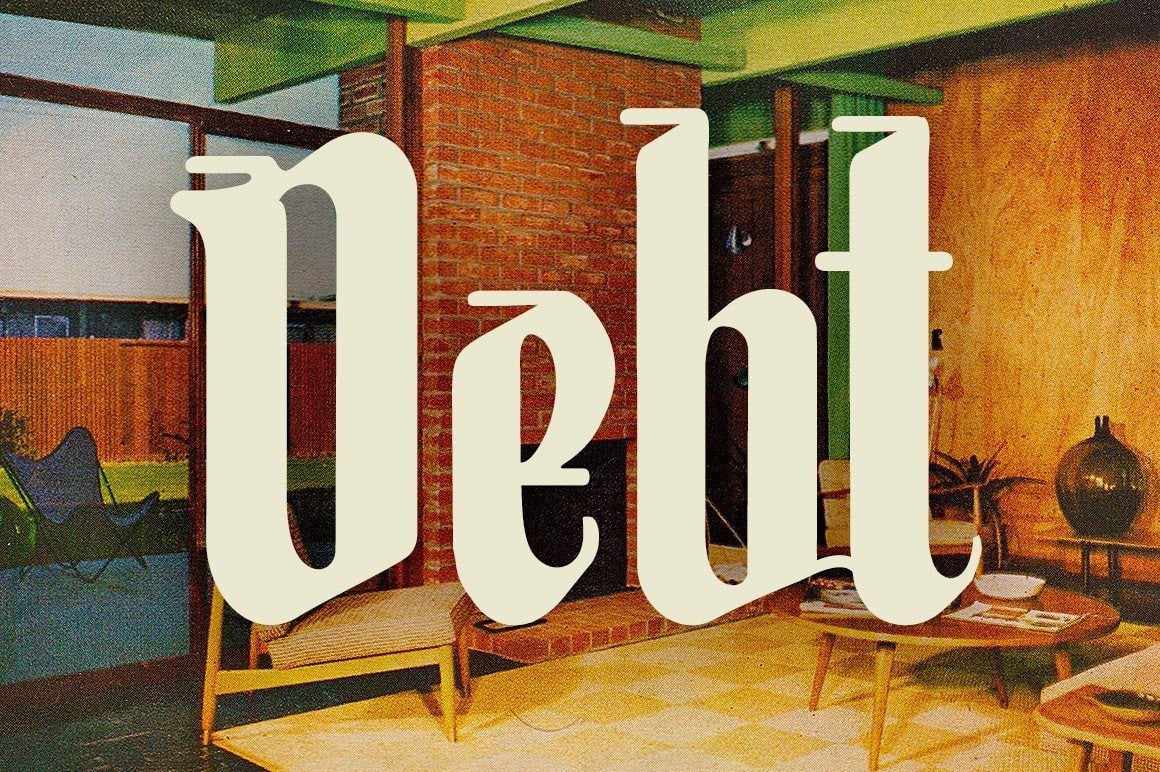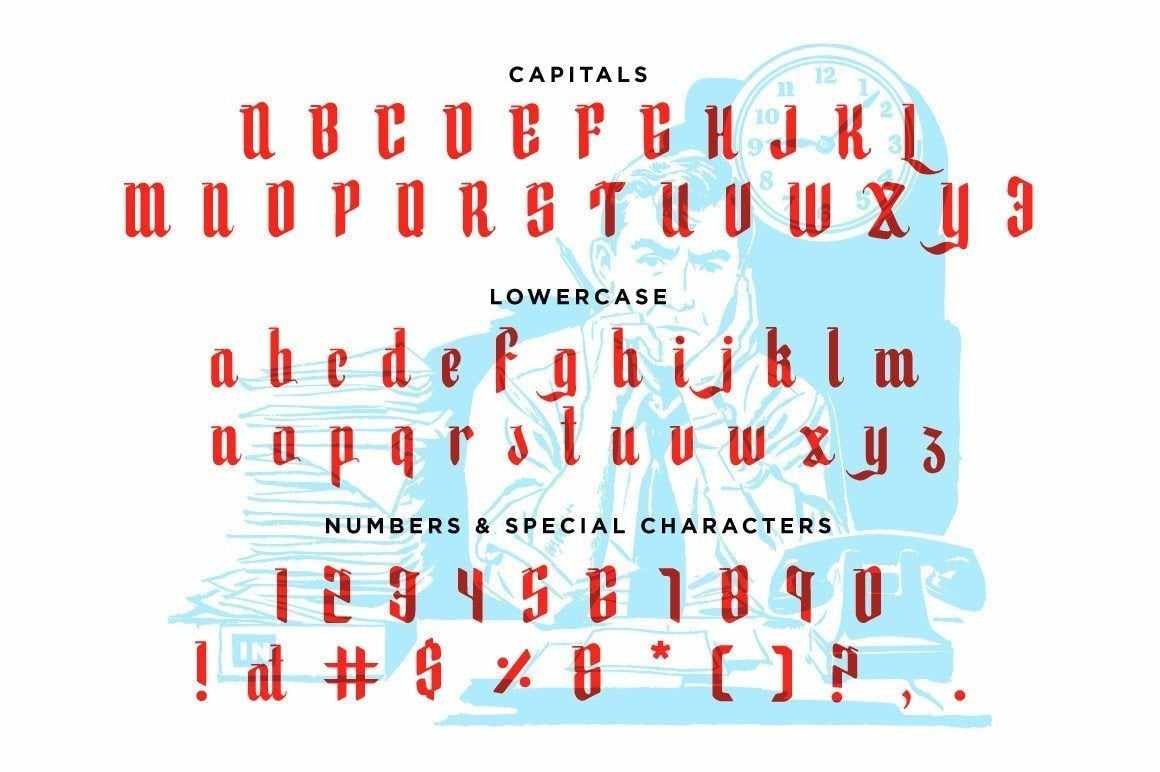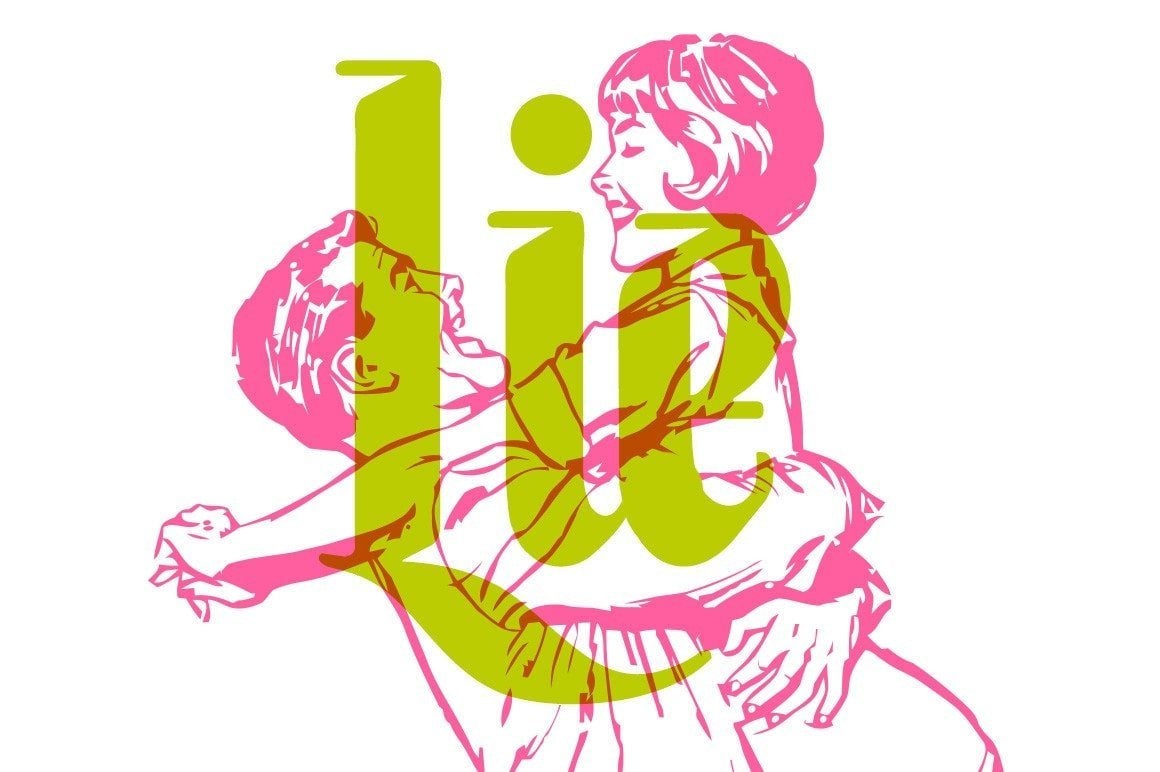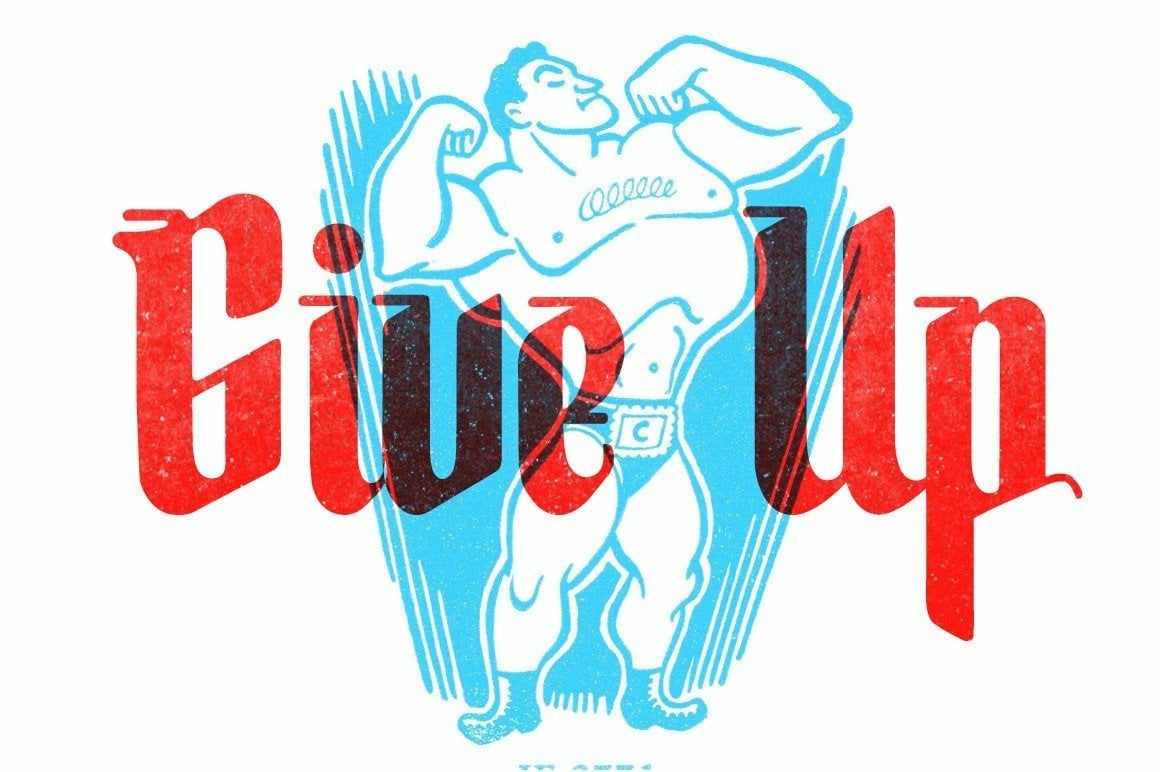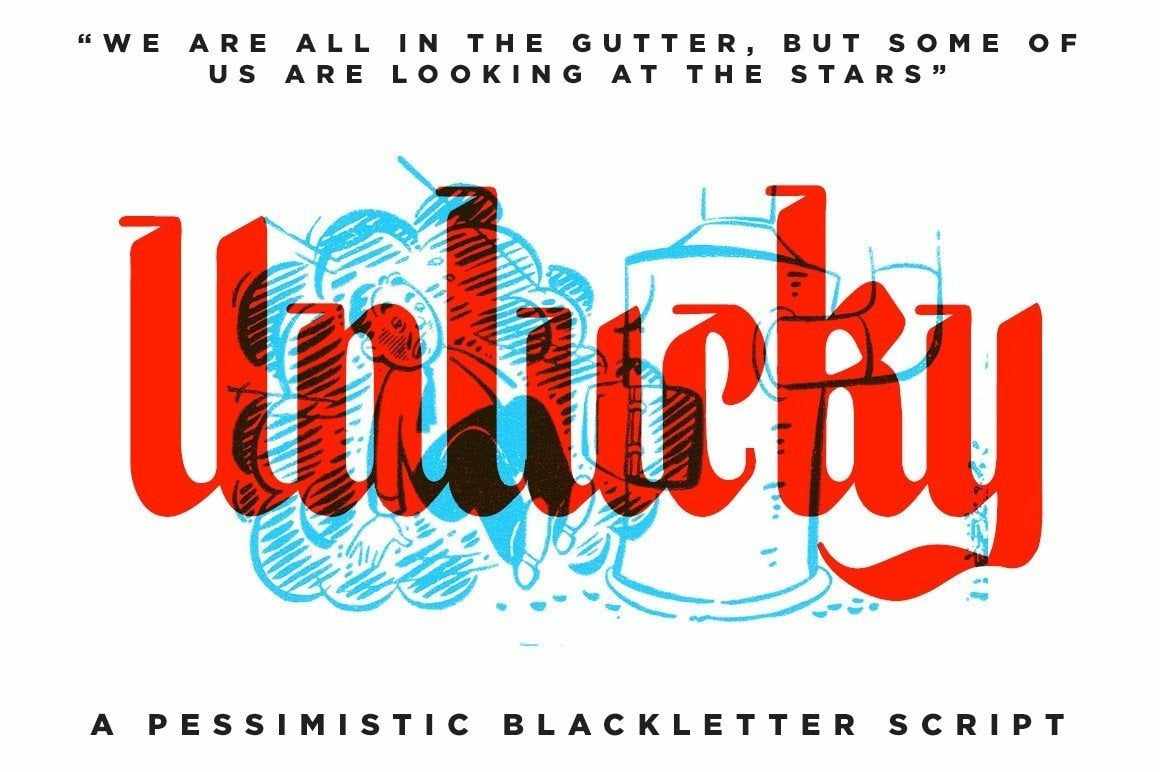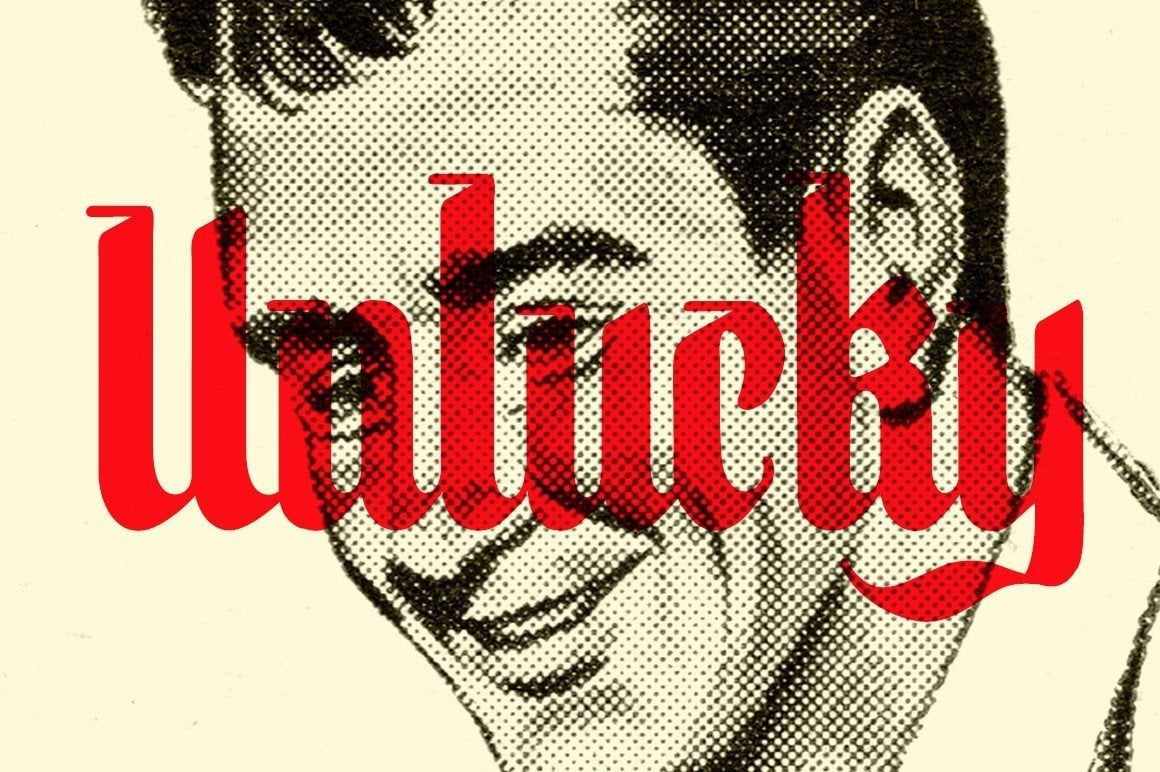
Unlucky
Who says blackletter fonts can only be used for Christmas cards and death metal bands? Unlucky breaks the mold and encourages you to use it for delivering bad news.
• Includes characters A-Z, 0-9 and punctuation
• Includes uppercase and lowercase letters
• Perfect for delivering bad news
Great for everything from gravestones to pink slips. Grab Unlucky today and start spreading some bad news!